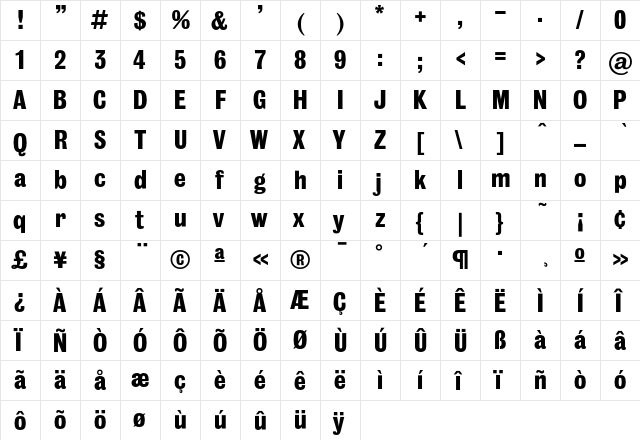
Newsweek EightNW Font Preview
Newsweek EightNW
Design Context for Newsweek Typeface
Newsweek offers clean, dependable letterforms without strong stylistic allegiance, making it a practical choice for designers who need flexibility.
Pro Tip: Pair Newsweek with a font of contrasting weight or personality to build a more expressive typographic hierarchy.